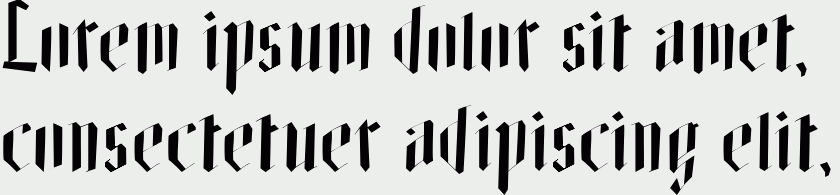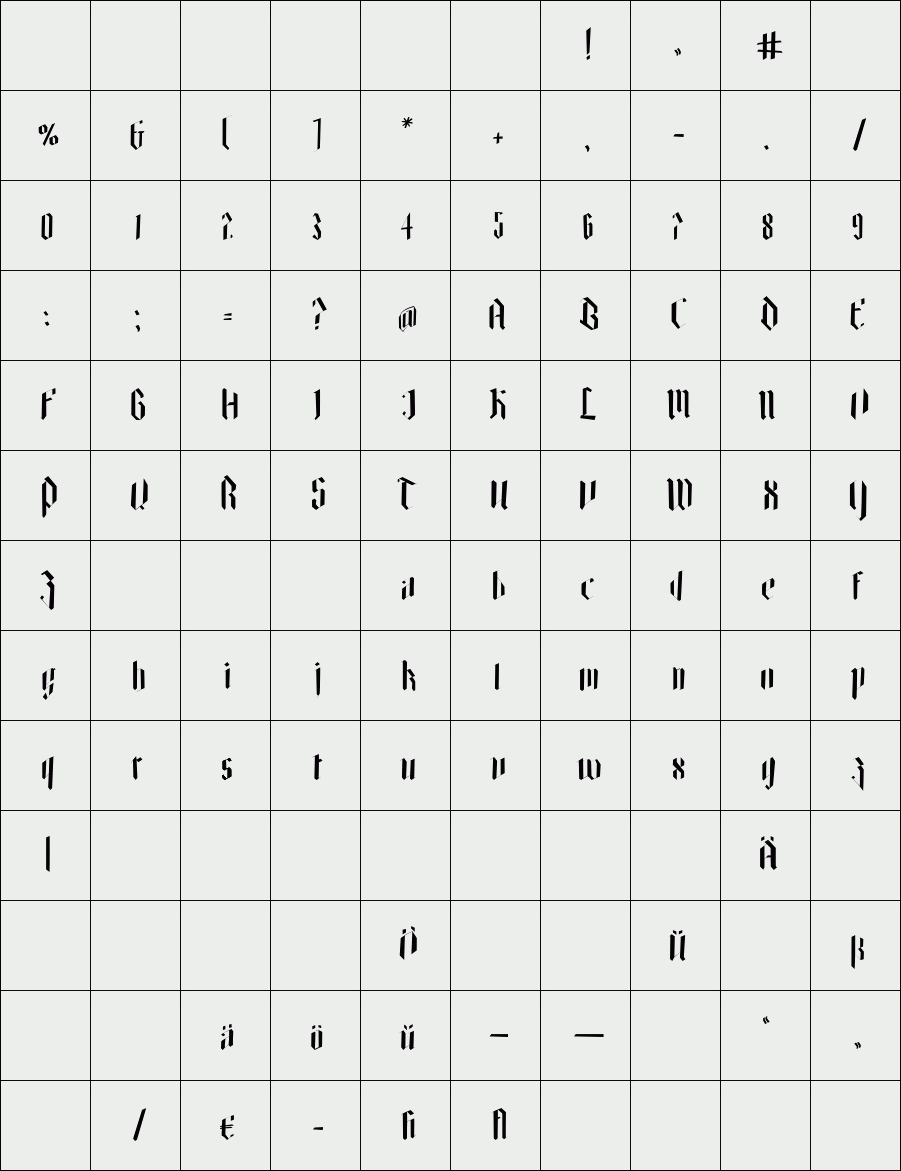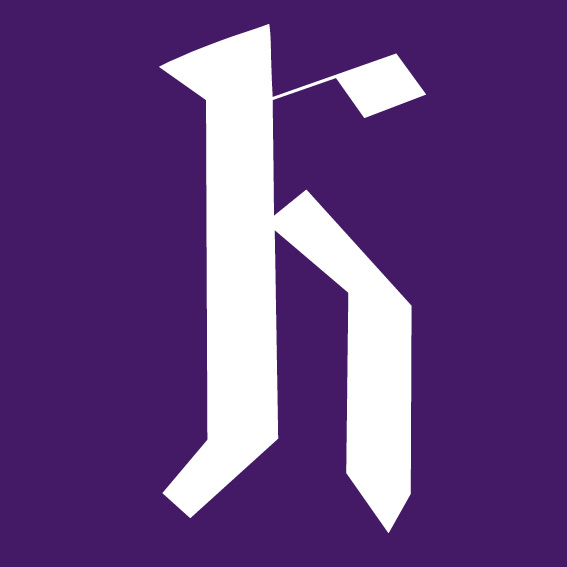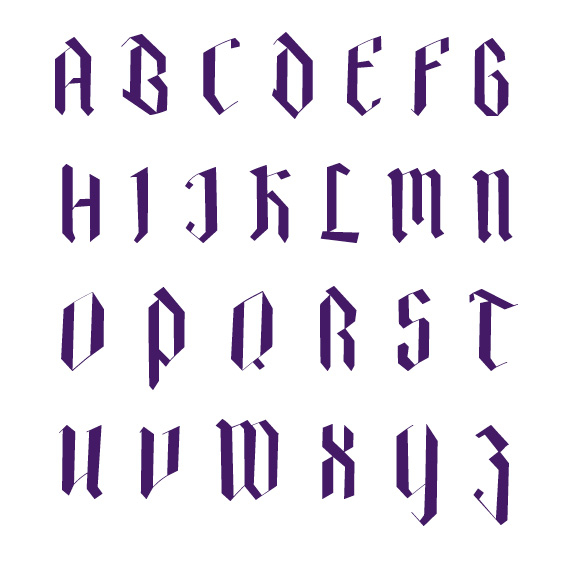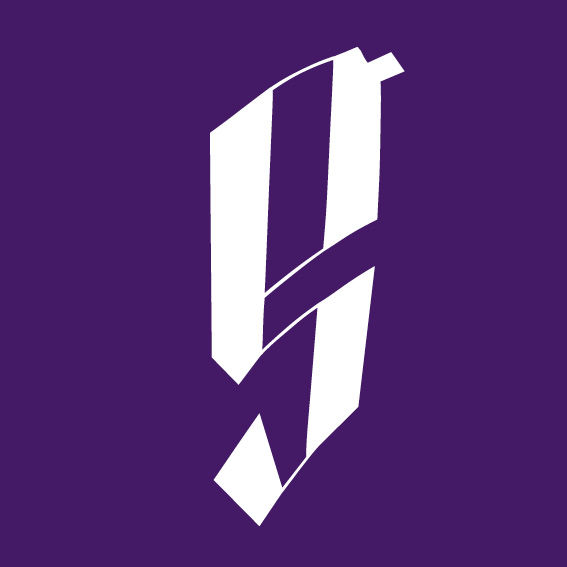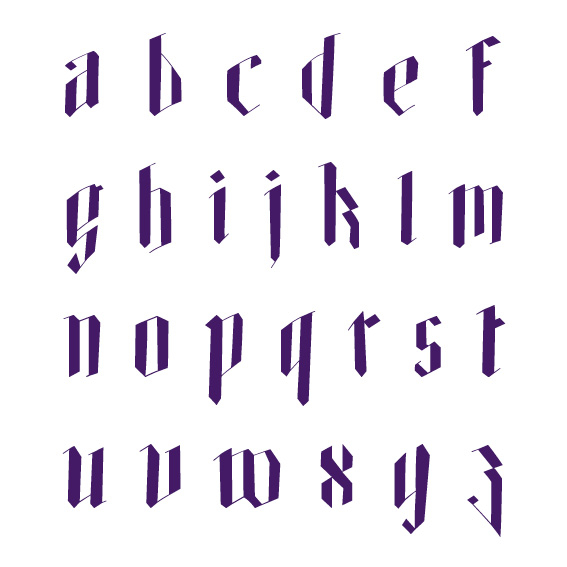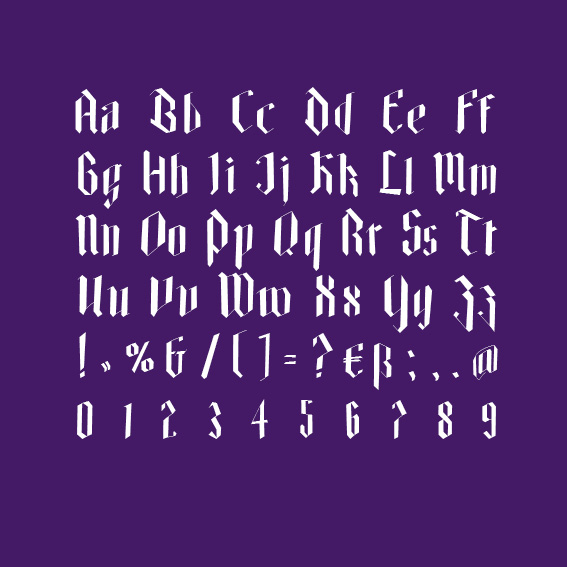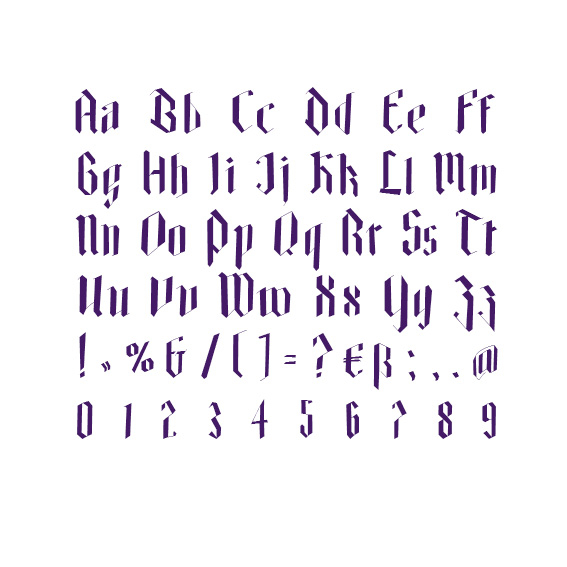
Flittchen
This font was inspired by fishnet stocking on a women leg. It came out to be a very vivid fraktur or black letter font.
Designer: Miriam Horn